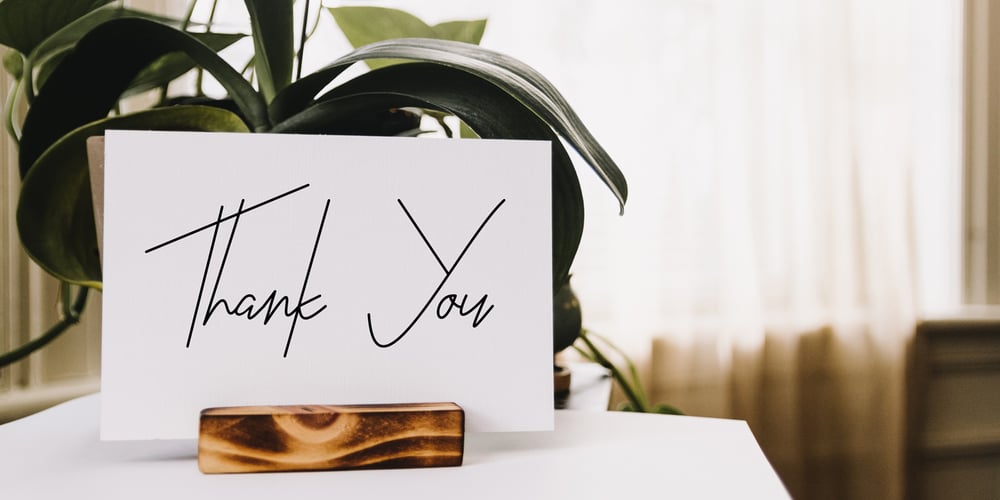
Katty Signature
Katty Signature font
Katty Signature Font Family was designed by Rohmat Sidiq Mustaqim and published by Dieza Design. Katty Signature contains 1 styles and family package options. Give your design the feel of authentic craft. “Katty Signature” is perfect for stationary, logos and more.